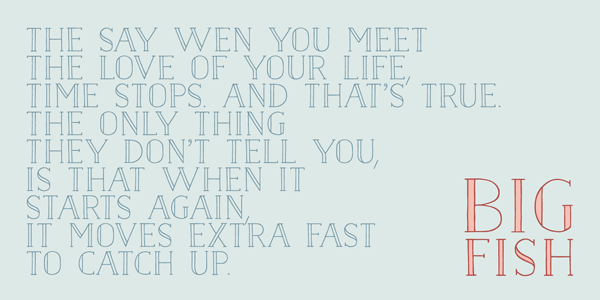
Naïve Inline – Hand Drawn Typeface.
Naïve Inline is a handwritten serif font designed by Fanny Coulez for the font foundry ‘La Goupil Paris’. The typeface has a nostalgic and classic parisian typography with a hand drawn appearance. Naïve Inline consists of three weights which can be enhanced with a bicolor interior (ribbed or full). Naïve Inline looks great in any natural design, headlines or texts.